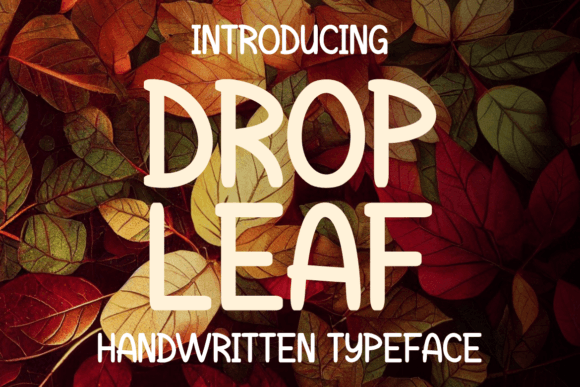
The Perfect Font for Capturing Autumn’s Magic
As I sat in my cozy home, surrounded by the vibrant colors of fall, I found myself rummaging through my design library in search of the perfect font to capture the essence of the season. It was then that I stumbled upon the enchanting Drop Leaf Font, and I knew I had found my treasure.
This exquisite font is a masterful blend of delicate lines and gentle curves, evoking a sense of nostalgia and wonder that’s reminiscent of leaves changing colors. With its soft and tranquil feel, the Drop Leaf Font is the perfect companion for designers looking to create projects that exude the beauty and charm of autumn. Its versatility makes it an invaluable asset for designers, from crafting invitations and greeting cards to designing posters and other creative projects.
Key Features of Drop Leaf Font
- Unique Characteristics: Drop Leaf Font features a unique, hand-drawn design with subtle irregularities, giving it a natural, organic feel.
Drop Leaf Font Review
Overall, I think Drop Leaf Font has some great qualities that make it a solid choice for designers looking for a unique and versatile font. ✨ It has a beautiful, organic feel that works well for a wide range of projects, from branding and logos to digital products and marketing materials. The font is also highly customizable, with a wide range of weights and styles to choose from, making it easy to adapt to different design needs.
The font also performs well in different contexts, including headings, body text, and even small text. The design team has done a great job of ensuring that Drop Leaf Font is both legible and visually appealing, even at small font sizes. ✨ This makes it a great choice for designers who need a font that can handle a lot of different tasks.
- Beautiful, organic design that works well for a wide range of projects
- Highly customizable with a wide range of weights and styles
- Legible and visually appealing even at small font sizes
- Some users may find the font too playful or whimsical for certain design projects
- The font may not be the best choice for projects that require a more formal or traditional look
- Some users may experience issues with font rendering on certain devices or browsers
- ⚠️ The font’s organic design may make it difficult to read in certain contexts, such as in small text or in noisy backgrounds
I think Drop Leaf Font is a solid choice for designers looking for a unique and versatile font. While it may not be the best choice for every project, it’s definitely worth considering for projects that require a playful and organic feel. With its high level of customization and versatility, it’s a great addition to any designer’s toolkit.
The Drop Leaf Font is ideal for use in invitations, posters, and other promotional materials where a creative and elegant look is desired. It is also suitable for use in headings and titles to add a touch of sophistication to your designs.